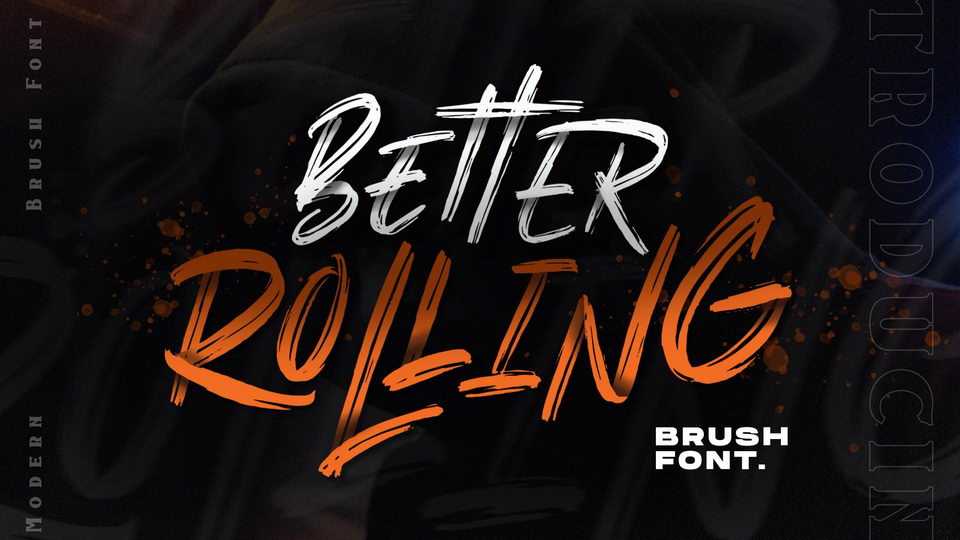
Download Better Rolling font, a modern hand brush typeface, a supercharged, street-wise script bursting with energy. Each character of Better Rolling was carefully brushed so the textured comes like real.
Designer: Mas Anis Studio